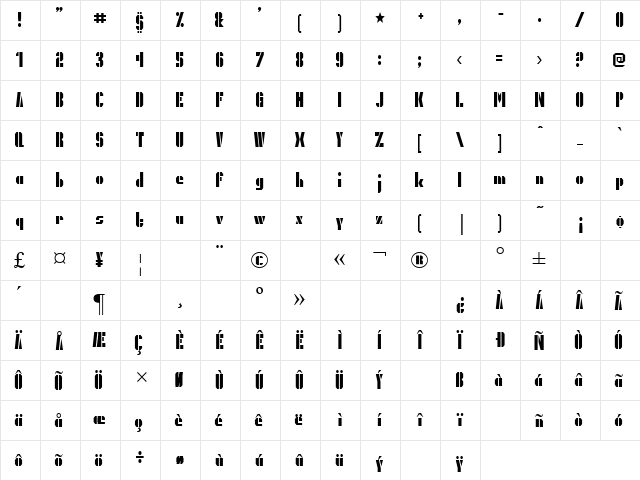
PresidentGas Regular
Design Context for PresidentGas Typeface
PresidentGas is a composed and adaptable typeface that performs quietly and consistently across a wide range of design contexts.